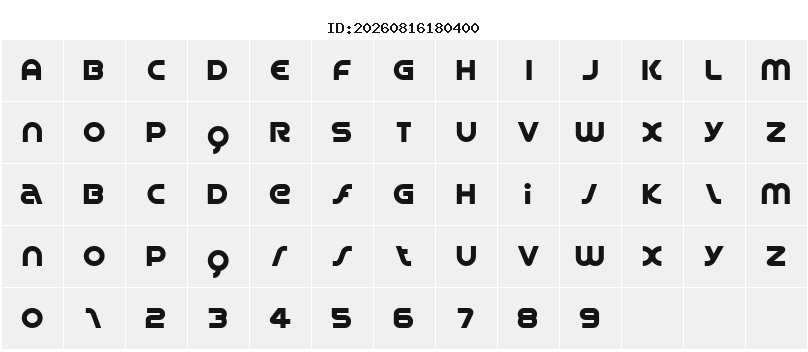
• Font Name: Spin Cycle
• Full Font Name: Spin Cycle
Spin Cycle.ttf is a modern, elegant sans-serif font designed for ultimate readability and visual harmony. Perfect for branding, headlines, web design, and print materials.